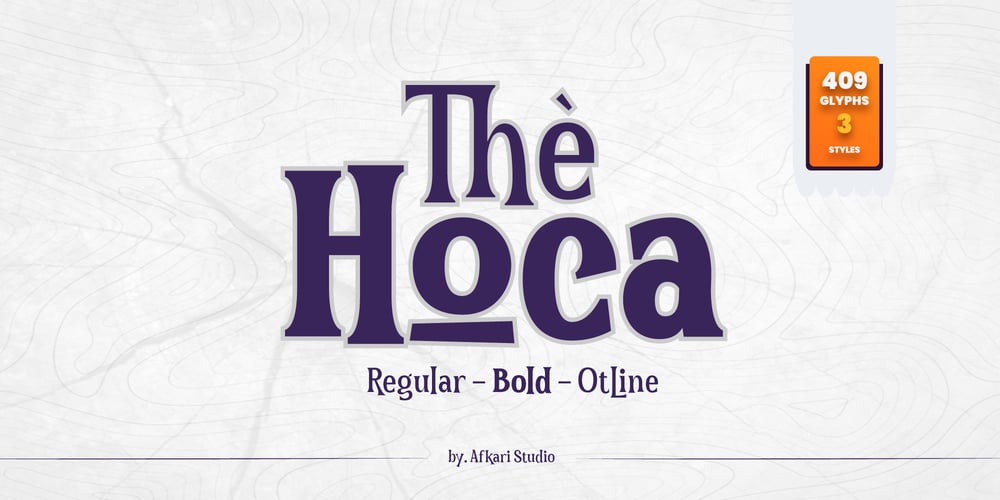
The Hoca Font Family was designed by Musthafa Kamal Emje and published by Afkari Studio. The Hoca contains 3 styles and family package options. The Hoca Display Serif Font is made with unique typeface font and also has vintage serif display font. This font is suitable for any branding of your design needs, project, labeling, clothing, movie screen, poster, studio brand, Halloween design, magic design, kids design, movie title, gigs, invitations, social media posts, clothing, any poster design, cafe/resto sign, album covers, logos, and much more.Features; 3 Styles; Regular, Bold, and Outline Uppercase, Lowercase, Number, and Punctuation Alternates and Special Ligatures Works on PC & Mac Simple installations Accessible in Adobe Illustrator, Adobe Photoshop, Adobe InDesign, and even work on Microsoft Word Fully accessible without additional design software. Mültîlíñgúãl Sùppört;Hope you enjoy our font and this font is useful for your projects!